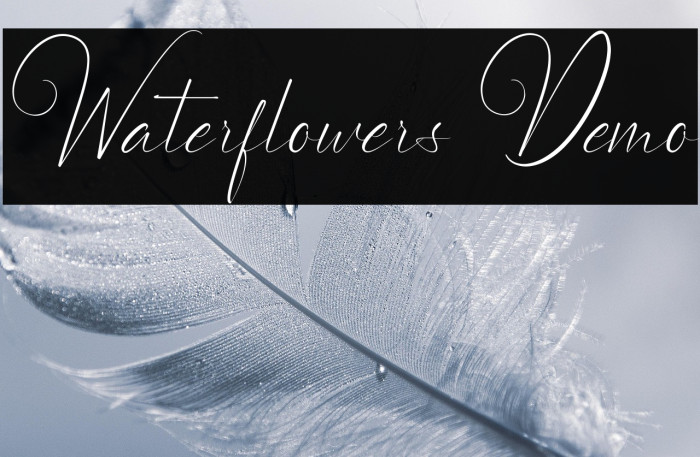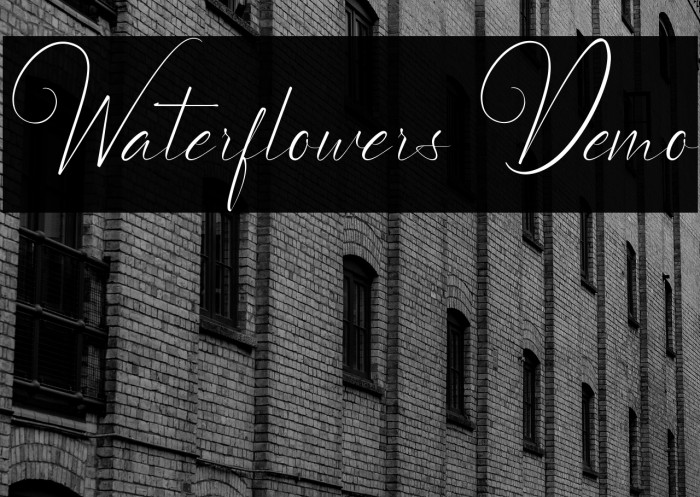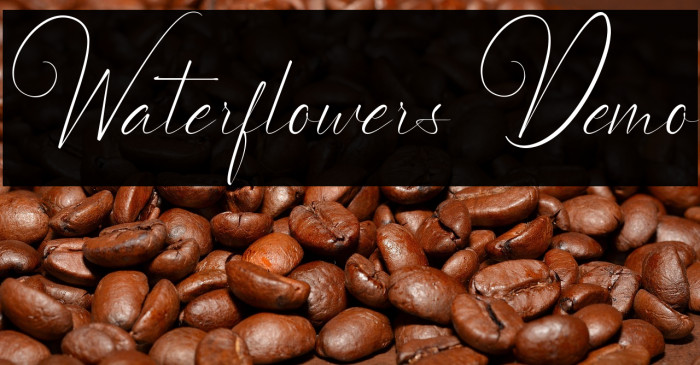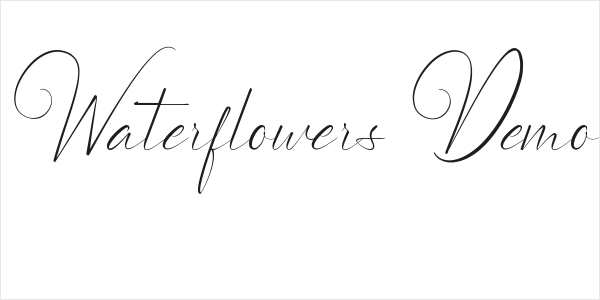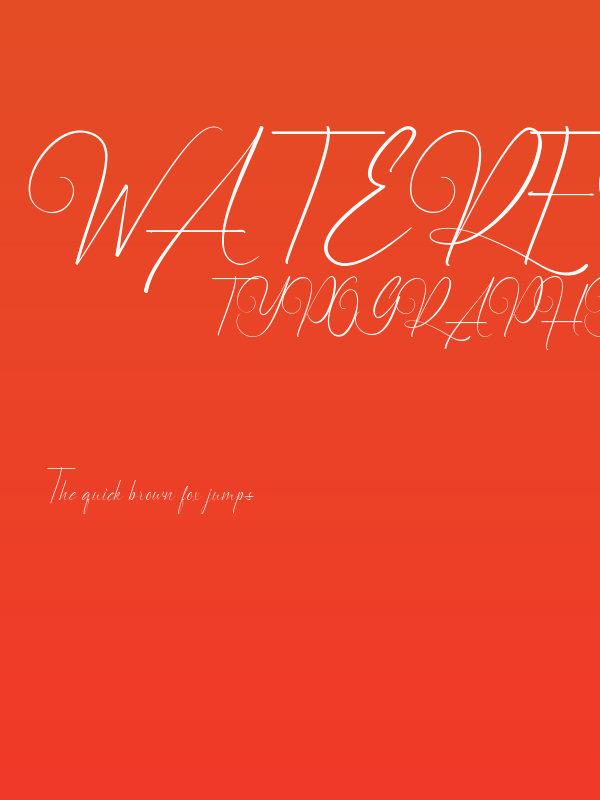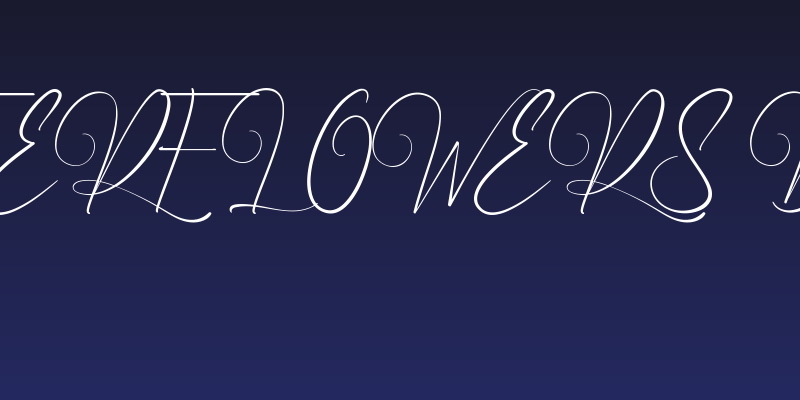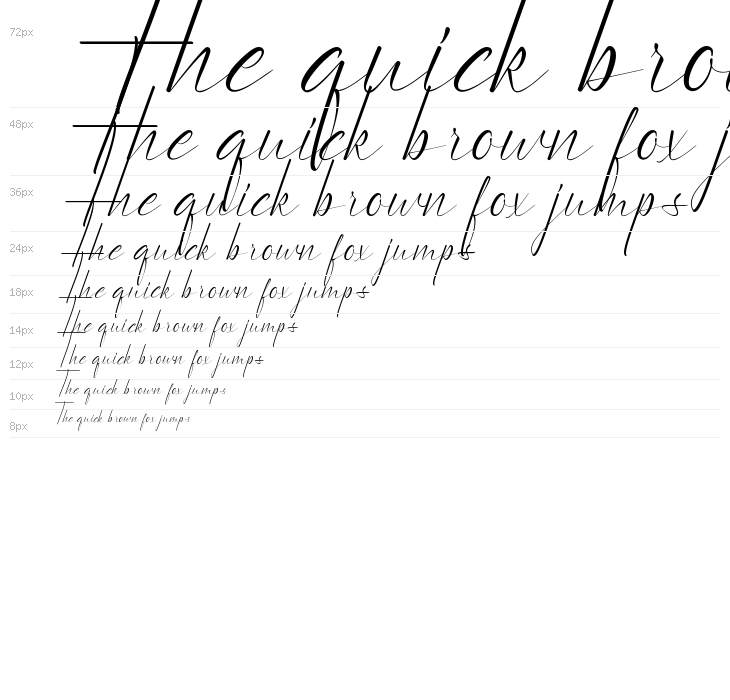
Waterflowers Demo Font
Waterflowers Demo Description
This font features an elegant, flowing script style with delicate, elongated strokes and a graceful, cursive appearance. The uppercase letters are characterized by their sweeping curves and loops, giving them a sophisticated and artistic flair. The lowercase letters maintain a consistent fluidity, with some characters extending below the baseline, adding to the font's dynamic nature. The overall design is reminiscent of classic calligraphy, with a modern twist that makes it suitable for a variety of creative applications. The font's thin lines and high contrast between thick and thin strokes enhance its refined and stylish look.